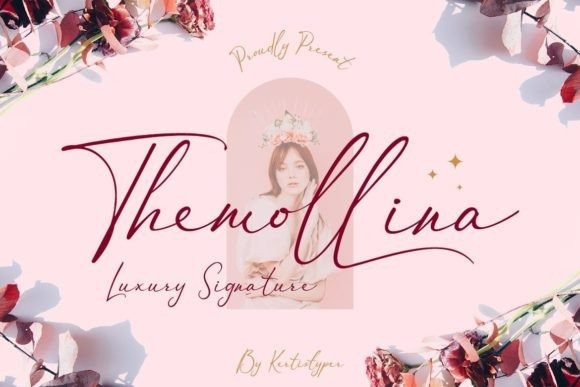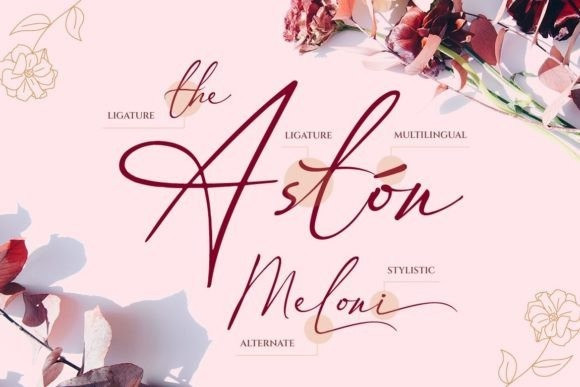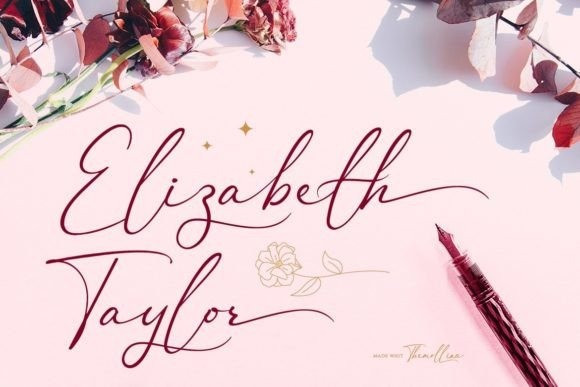
Themollina Font
Themollina is a handwritten signature font with a calligraphy flair, ideal for creating unique projects. This font is great for logo design, social media, titles, invitations, greeting cards, or anything that needs a lovely, romantic accent.